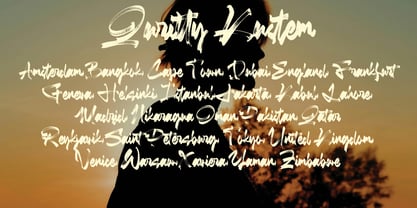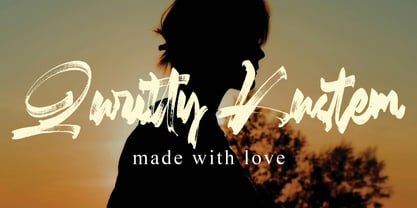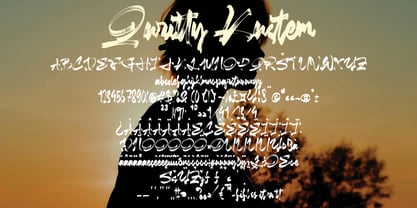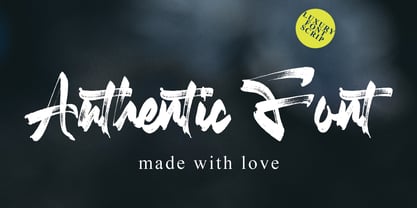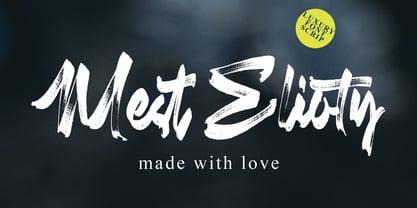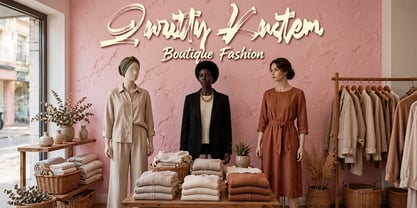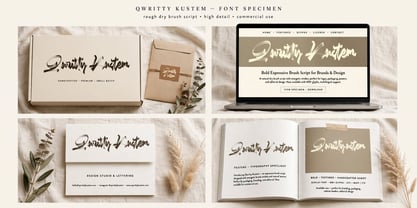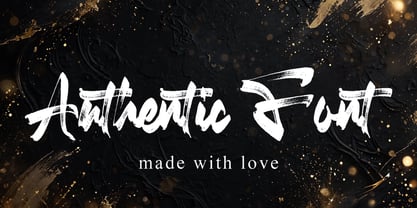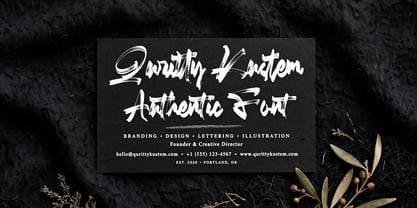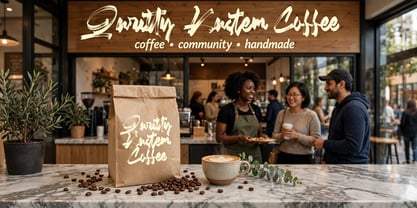
Quritty Kustem
by Ayska
The Quritty Kustem Font Family was designed by Dhoni Trihatmoko and published by Ayska. Quritty Kustem contains 1 styles. More about this family
Unveil the elegant allure of Quritty Kustem, the perfect blend of modern aesthetics and old-world artistry. Revered for its undeniable appeal, Quritty Kustem emerges as a steadfast ally in your inventive digital ventures, captivating with its wide range of applications. It pours novelty onto blog pages, introduces a signature flair to your digital planner designs, renders custom touches in your invites, and imbues authenticity into your handmade cards. Delight in the continuous charm and innovation of Quritty Kustem, an optimal pick for breathing a hint of vintage charm into valued photo mosaics or boosting your home's aesthetics. Witness the mesmerizing power of Quritty Kustem as it turns common digital engagements into captivating, engaging works of art. Let Quritty Kustem guide your artist's journey, imprinting memorable footprints of dynamic creativity. Embark on the artistic grandeur of Quritty Kustem and see your inherent creative boundaries transform into breakthrough discoveries.
Designers: Dhoni Trihatmoko
Foundry: Ayska
Quritty Kustem